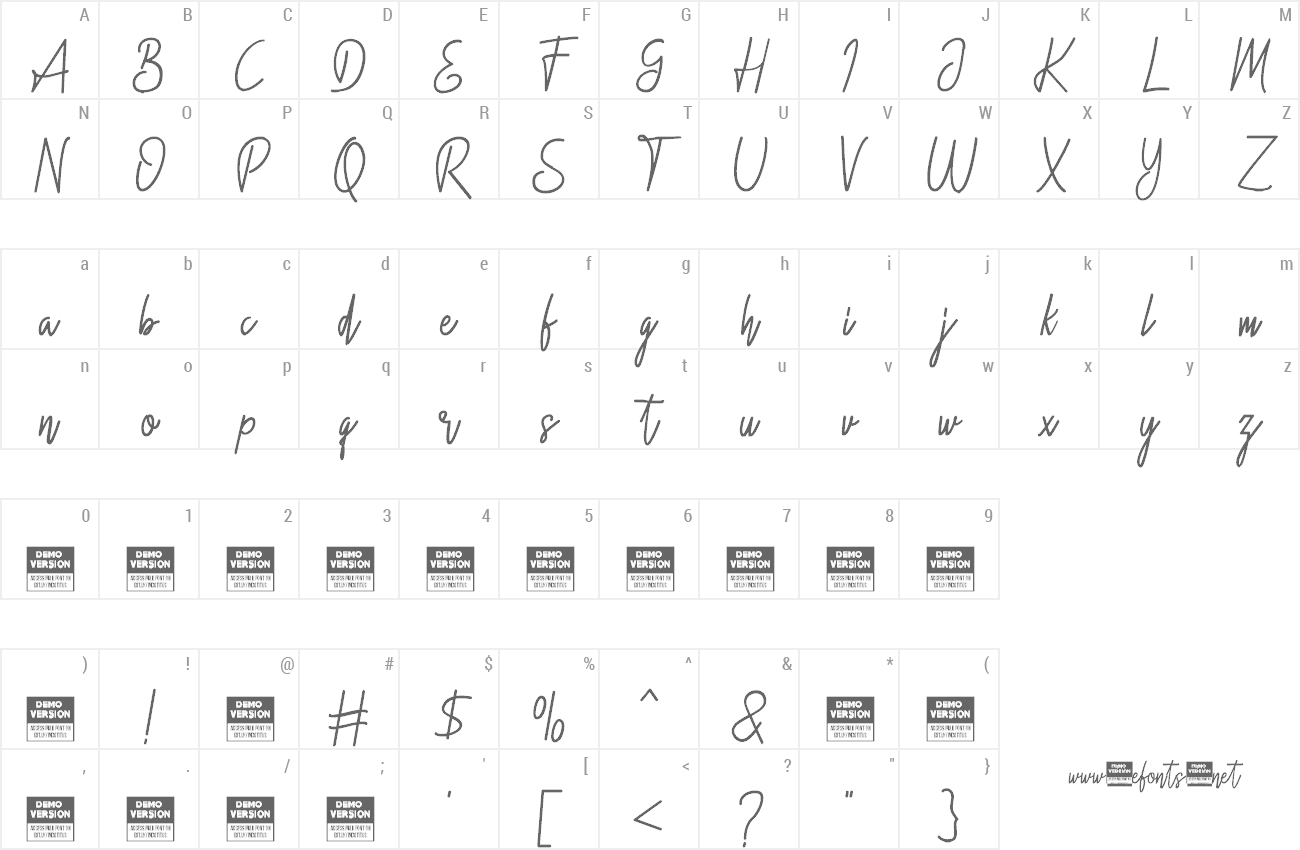
| Font name: | Hidario |
| Author: | Indotitas Squad |
Hidario Signature Font, Inspired by signature and stylish handwriting, perfect for many different project such as logos & branding, invitation, stationery, wedding designs, social media posts, advertisements, product packaging, product designs, label, photography, watermark Get Premium version here : https://creativemarket.com/Indotitas/3308993-Hidario-Signature-Font or https://www.creativefabrica.com/product/hidario/ You can Donate here Paypal address: mustaqim.ibraa@gmail.co Thanks Indotitas |